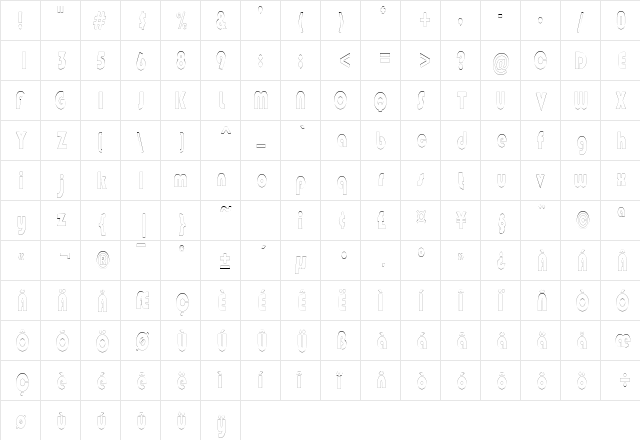
BongoBlackOutlineCondensed Regular
Design Context for BongoBlackOutlineCondensed Typeface
BongoBlackOutlineCondensed brings ornamental detail and strong personality to headlines and identities, where visual impact matters more than quiet functionality.
Font Pairing: Pair with a clean neutral sans-serif for body copy to let BongoBlackOutlineCondensed's character lead without overwhelming the composition.
Pro Tip: Use BongoBlackOutlineCondensed exclusively at display sizes — it was designed to be seen, not read at length. Let a neutral companion handle body copy.